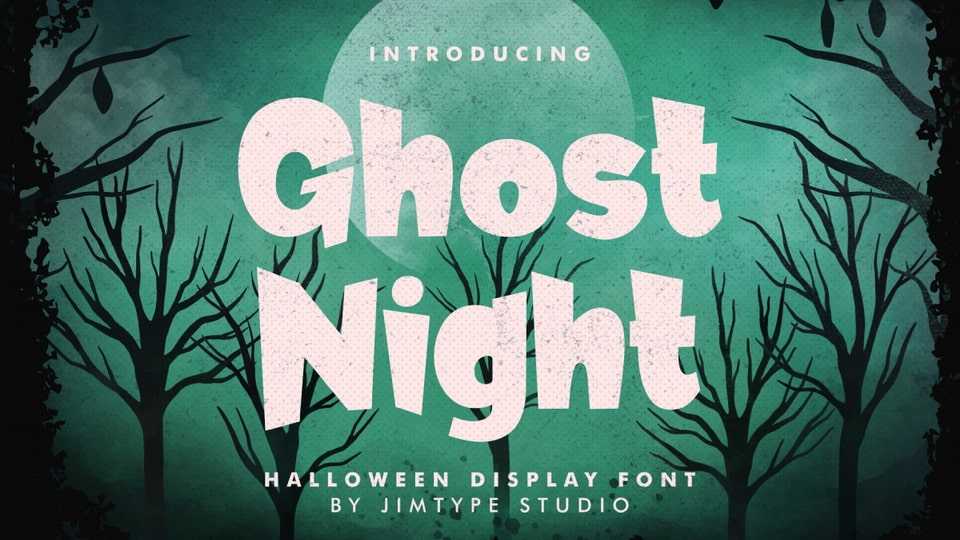
Download Ghost Night font, a Halloween inspired typeface with a perfect blend of unique and stylish look! Designed with hauntingly beautiful details, this font is your ultimate tool for creating captivating Halloween designs, eerie posters, and chilling party invitations.